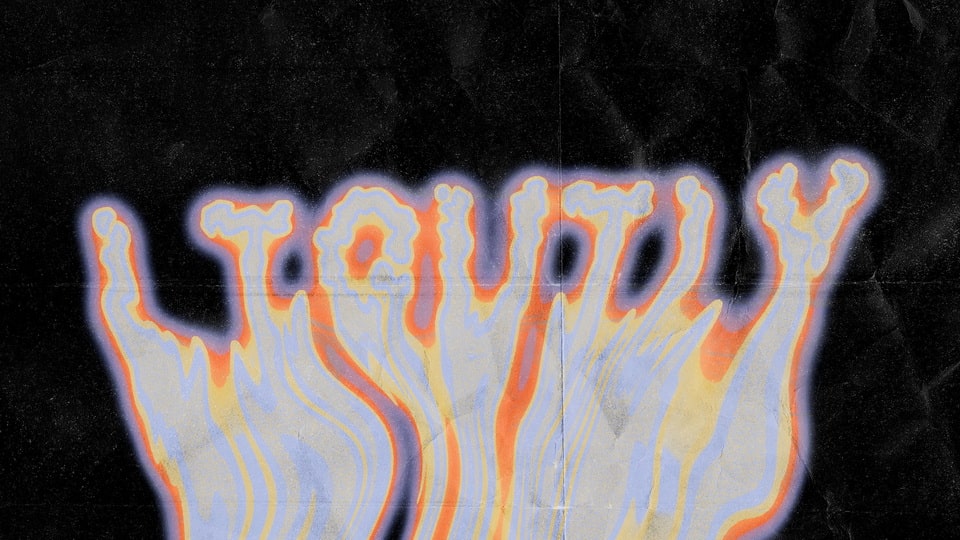
Download Liquly font, an experimental unconventional decorative typeface featuring fluid, wavy edges. Ideal for creating eye-catching titles, captivating festival posters, as a striking graphic element on vibrant T-shirts and hoodies, and so on.
Designer: Darya Batyreva